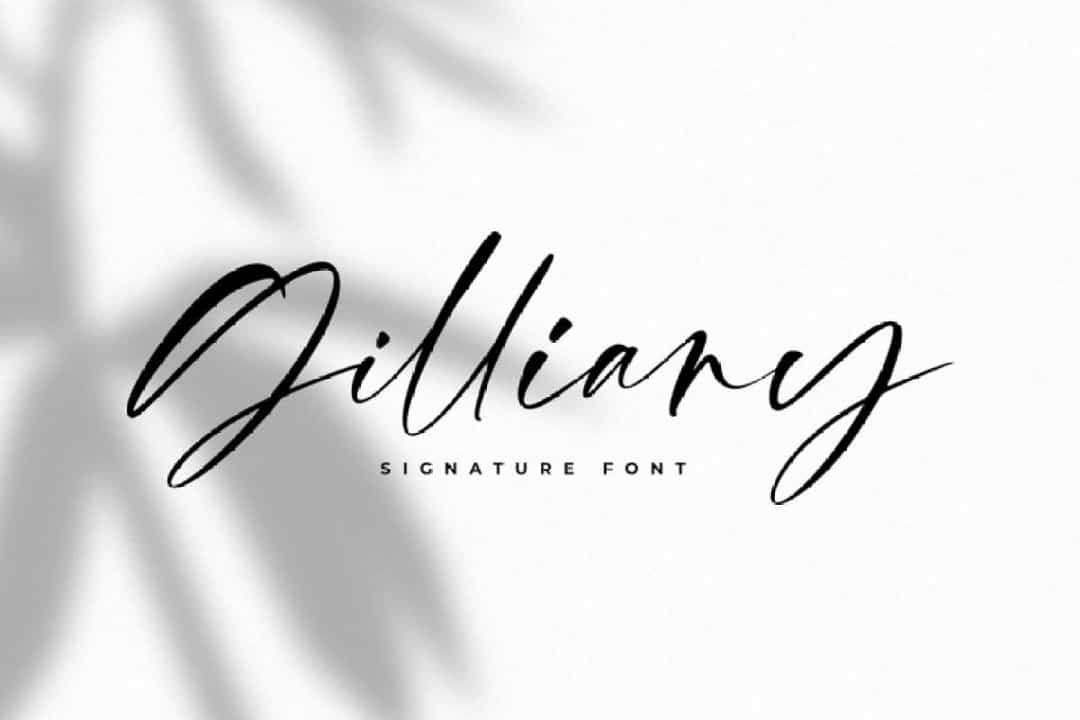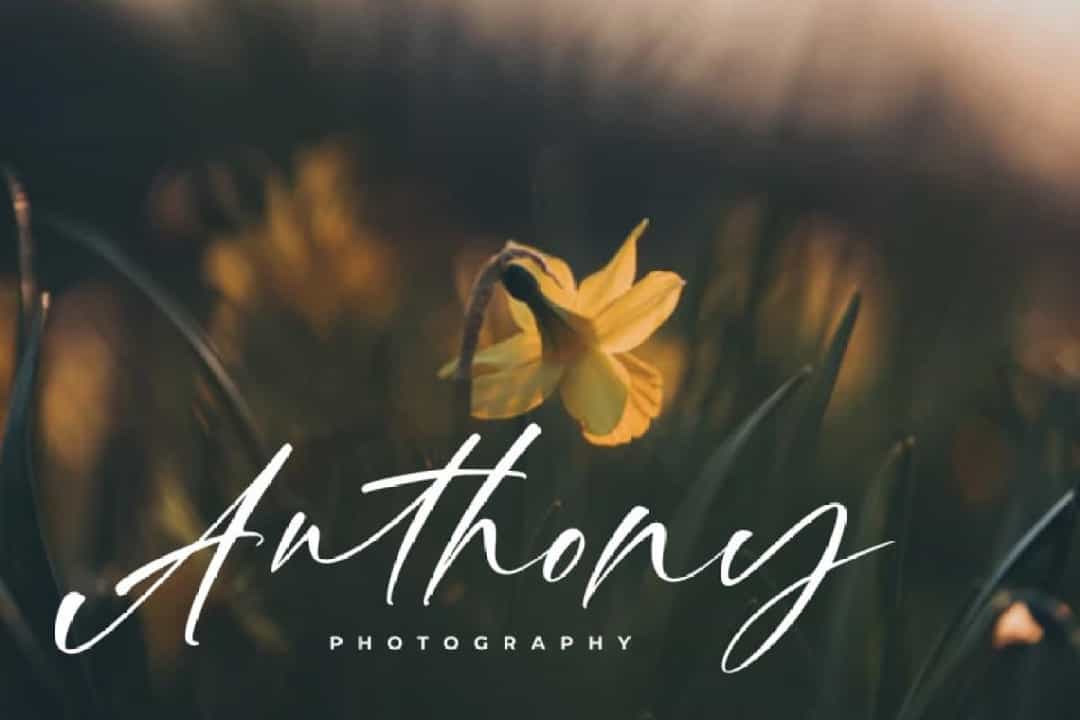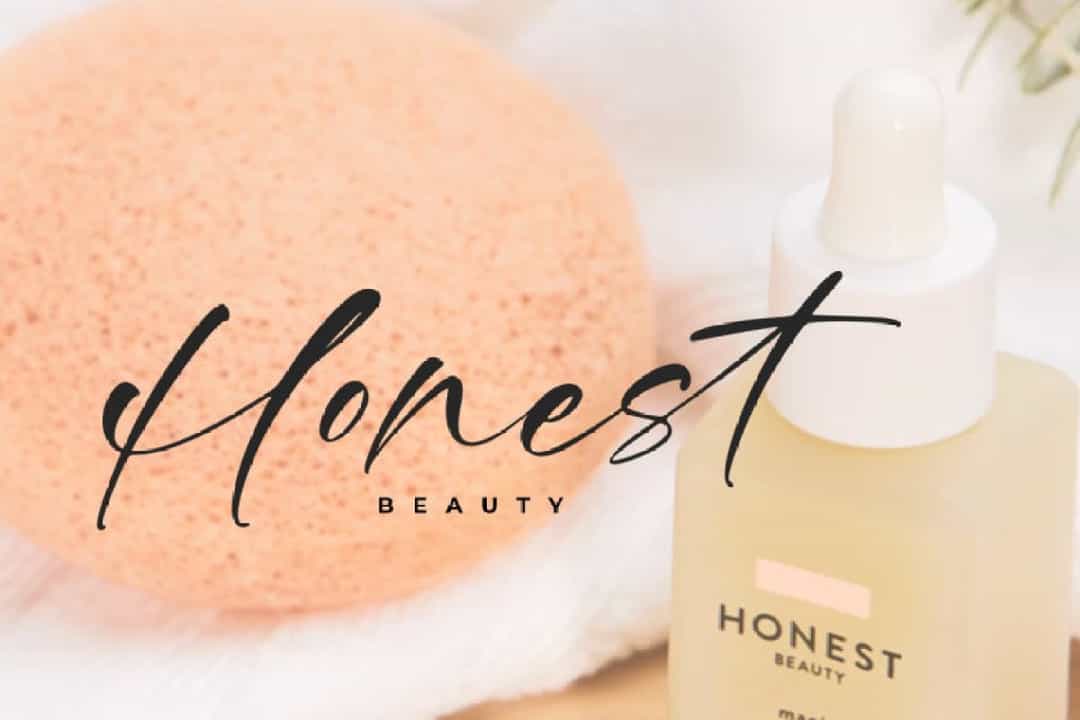
Discover Gilliany Signature Script Font, part of the Handwritten Script collection—a versatile and unique font perfect for adding a personal touch to your projects. Download it for free and enjoy crafting designs with style, from invitations to social media posts. This font is available exclusively for personal use, giving you the freedom to create without limits. Unlock your creativity with Gilliany Signature Script Font today!
Gilliany is a premium font brand that is produced in a very nice and detailed way with a lot of passion. Ideal for the development of original and provocative styles, this type of font is intended for headlines and other formal purposes such as labels, invitations, magazines, logos, books, packaging for greetings, wedding invitations, stationery labels, advertisements, etc.